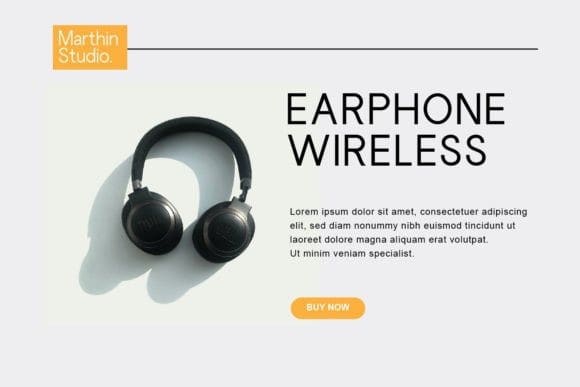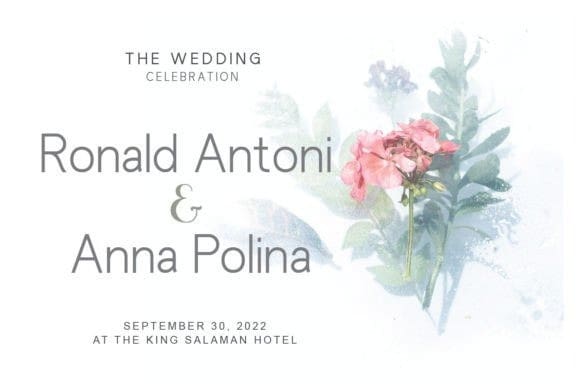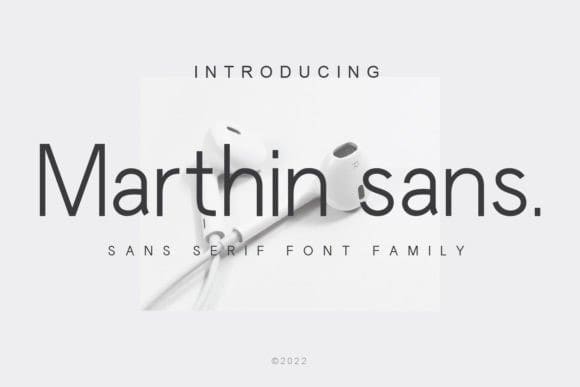
Marthin Sans Font
Marthin Sans Font, is a classy and elegant sans serif font. No matter the topic, this font will be an incredible asset to your fonts’ library, as it has the potential to elevate any creation.